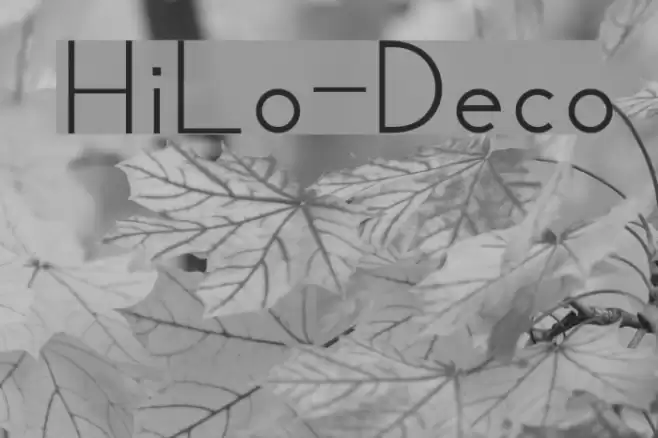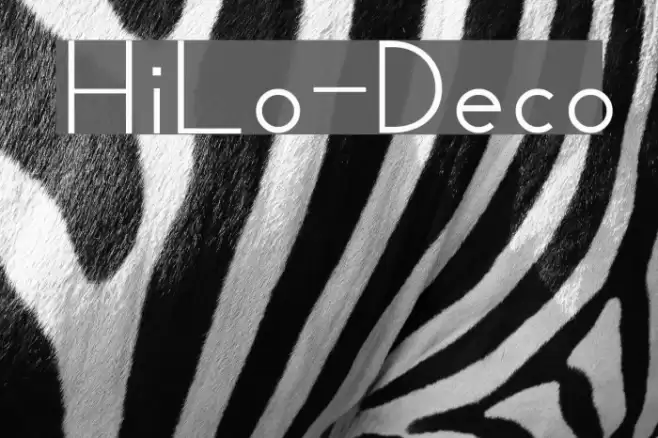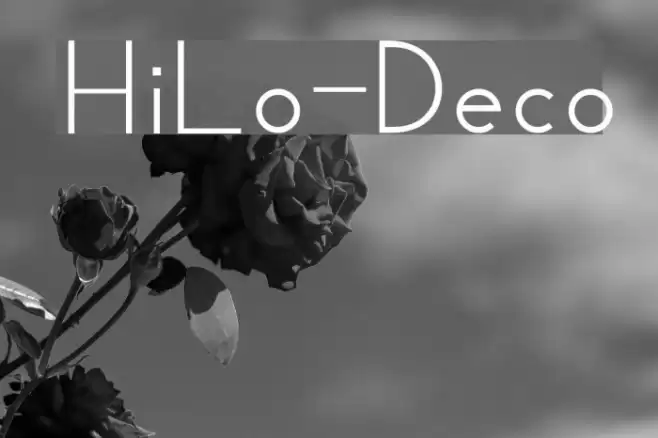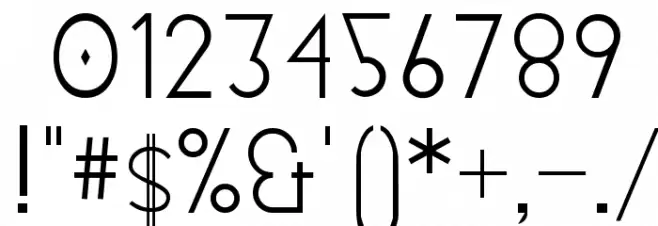
HiLo-Deco Font
HiLo-Deco Description
This font features a clean, geometric design with a modern aesthetic. The uppercase letters are tall and slender, with consistent stroke widths that give a uniform appearance. The lowercase letters maintain a similar style, with rounded edges that add a touch of softness to the overall look. The numerals are distinct and easy to read, matching the style of the alphabet with their geometric forms. Special characters are well-integrated, maintaining the font's cohesive design. The overall impression is one of simplicity and elegance, making it suitable for a variety of design applications.
A modern, geometric font with clean lines and a uniform appearance from Uncategorized fonts.
- Proposed Projects: Ideal for branding, editorial design, and digital interfaces where a clean, modern look is desired.